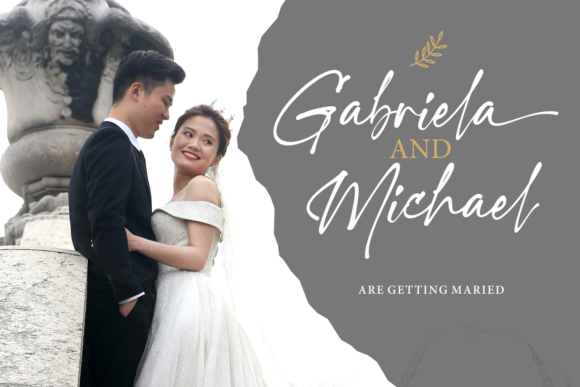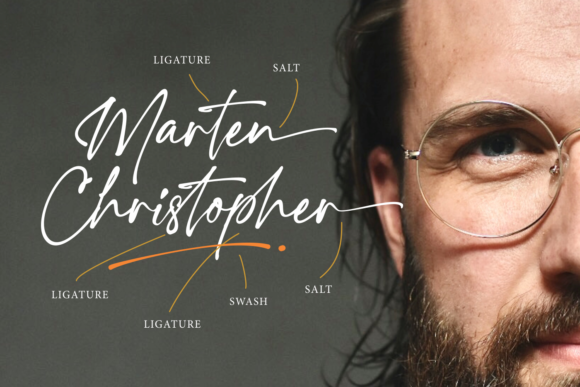
Charlotte Southern Font
db-ku.com - Script & Handwritten -- Charlotte Southern is a spectacular handwritten font. A little bit quirky, this font looks incredibly adept on a wide variety of contexts!